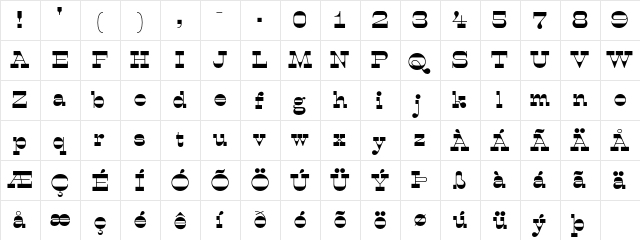
Arbor Regular
Design Context for Arbor Typeface
Arbor offers clean, dependable letterforms without strong stylistic allegiance, making it a practical choice for designers who need flexibility.
Pro Tip: Use Arbor in both headline and body roles to test its range before committing to a single application.